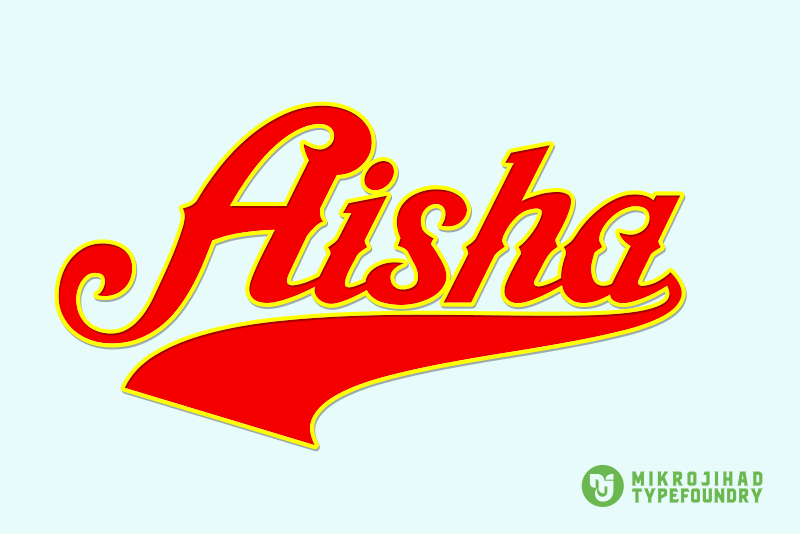
Aisha is a script font with victorian taste. Classic and old stylish. Good for Logos, Titles, Tees Design or Indie flyer and Poster. Add the swashes alternates at the end of your words and make your typography looks great. Full version available for download here: http://www.revolge.com/product/aisha-script/ Full version comes with swashes ending alternates available in separated font. Paypal Donation | Inquiry or Collaboration | Question or Proposal | Send to mikrojihad@gmail.com Thanks, Mikrojihad, inc. |